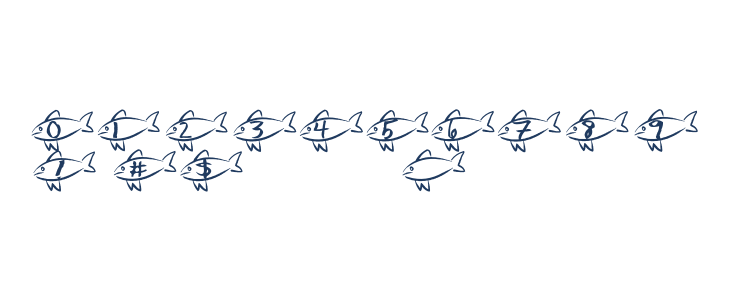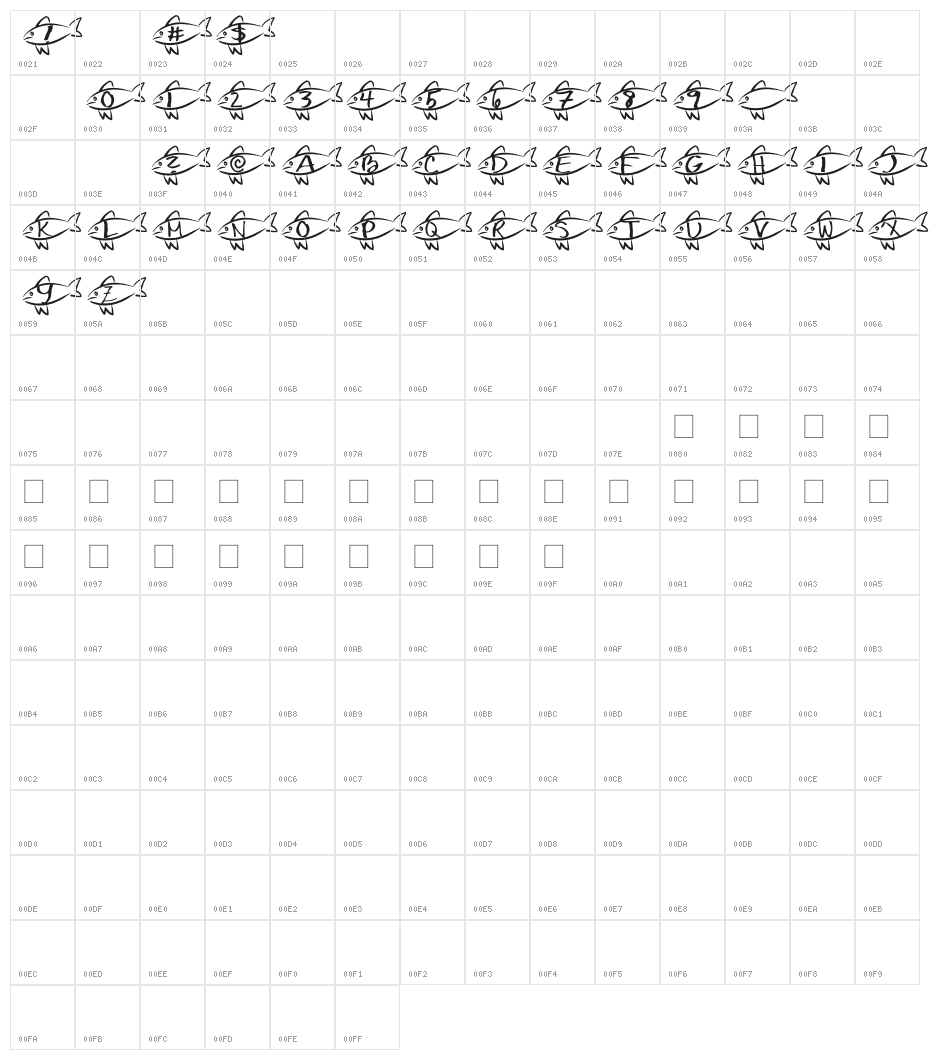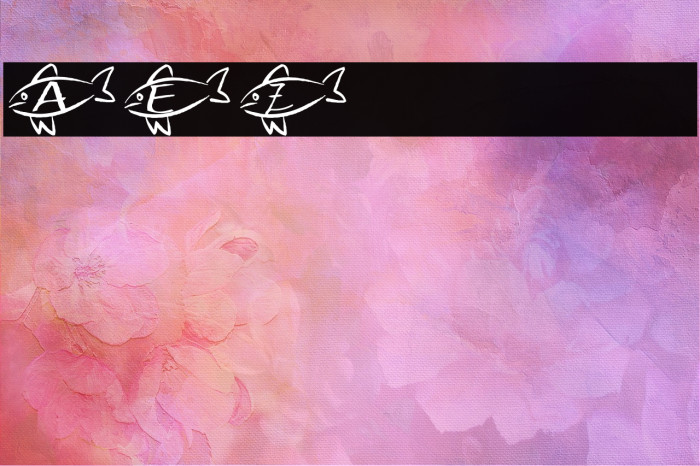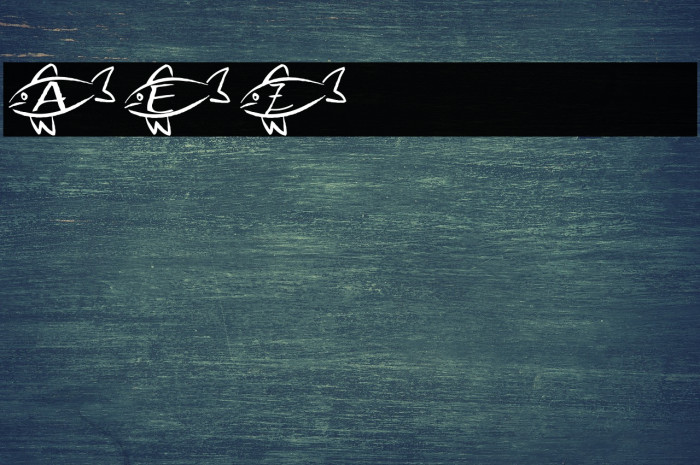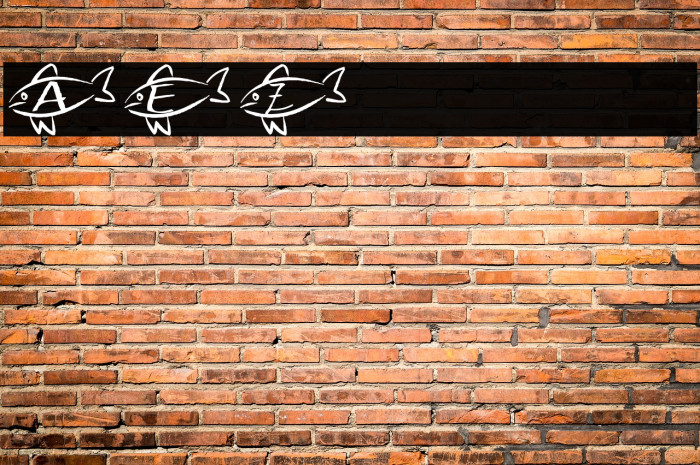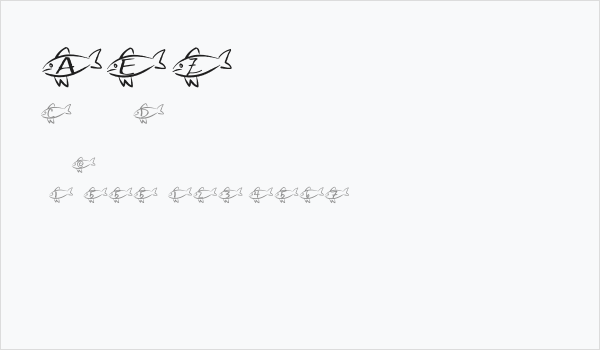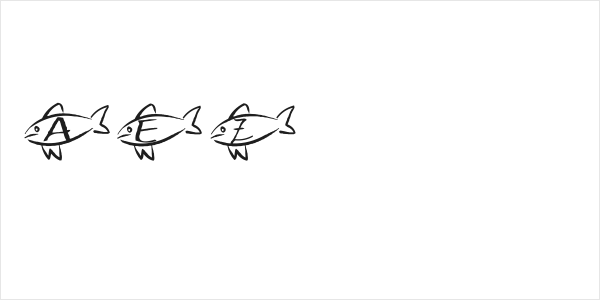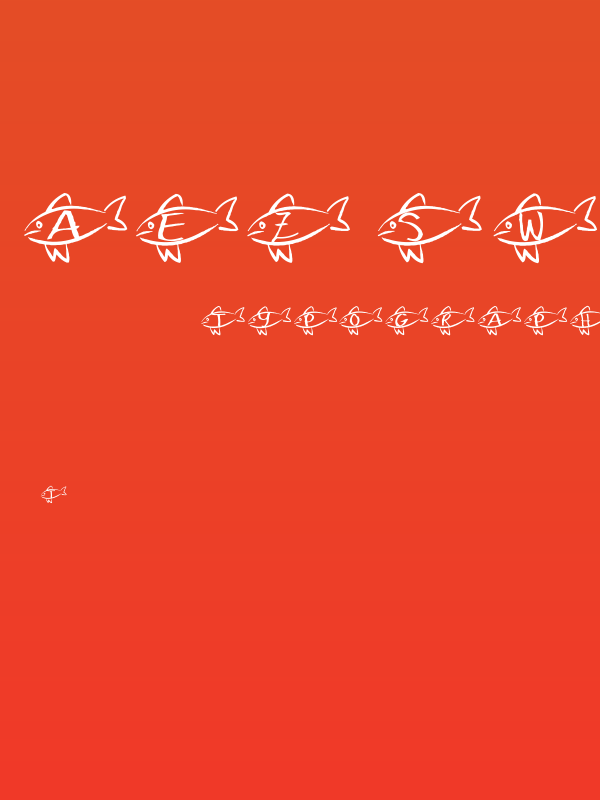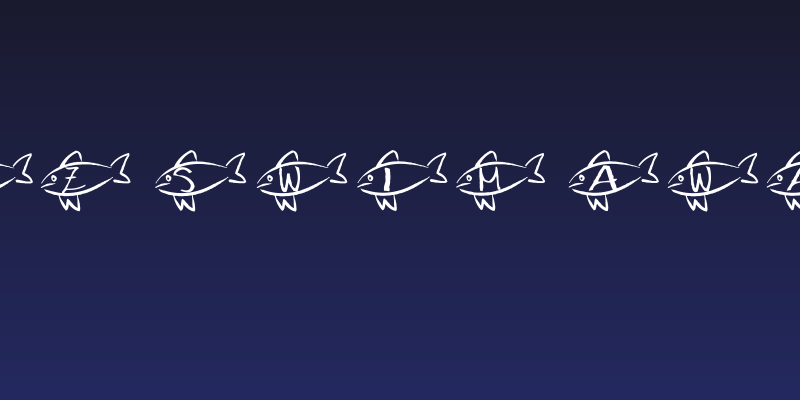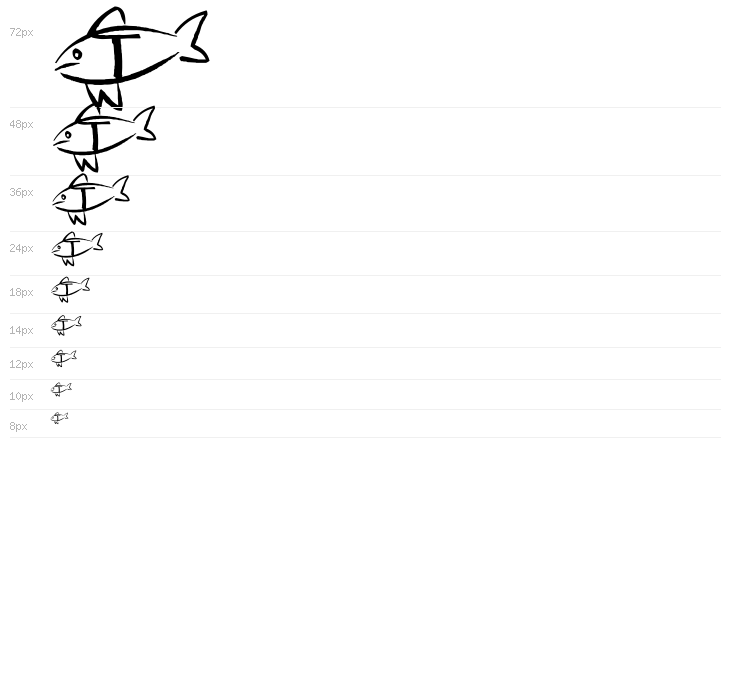
AEZ swim away Font
AEZ swim away Description
This playful and whimsical font features each character enclosed within a fish shape, adding a unique and aquatic theme to the design. The letters and numbers are centered within the fish, maintaining a consistent style across the entire set. The font is highly decorative, making it ideal for projects that require a fun and lighthearted touch. The characters are evenly spaced within the fish, ensuring readability while maintaining the novelty of the design. This font is perfect for children's projects, aquatic-themed events, or any creative endeavor that seeks to incorporate a sense of fun and imagination.
| Proposed Projects | Ideal for children's books, aquatic-themed party invitations, playful posters, and creative branding projects. |